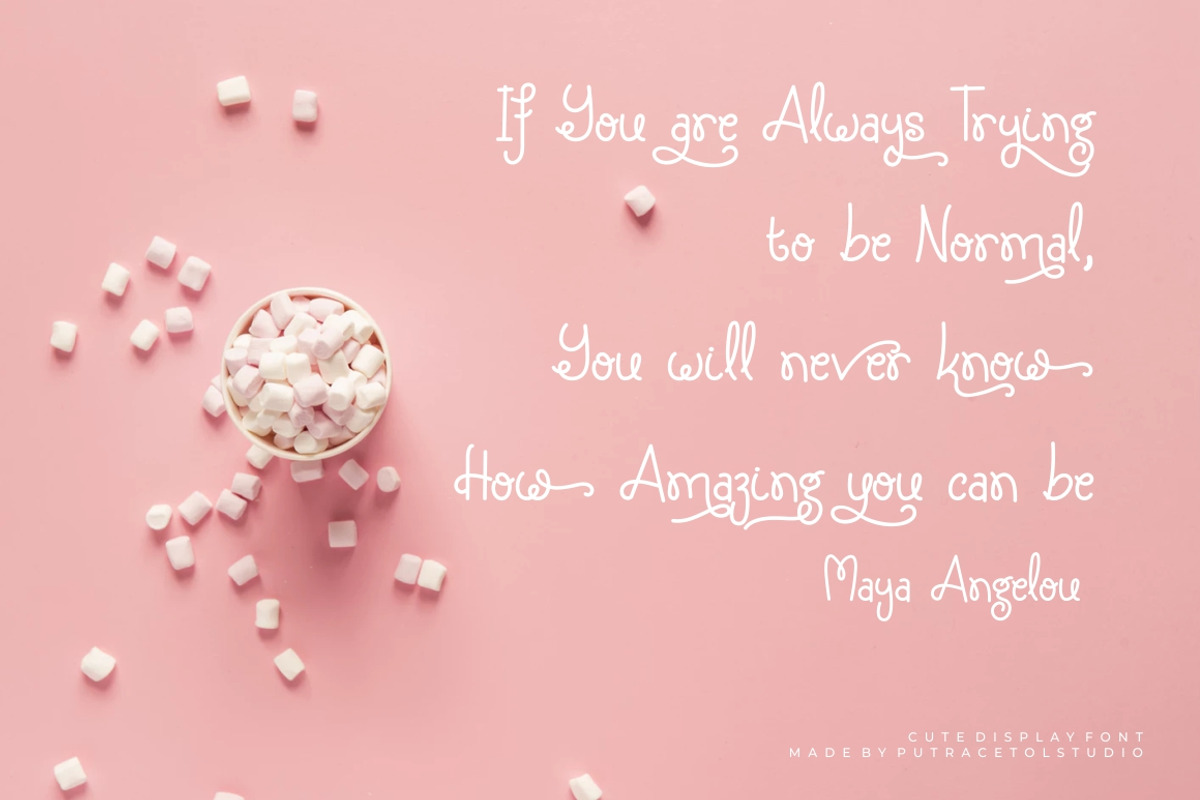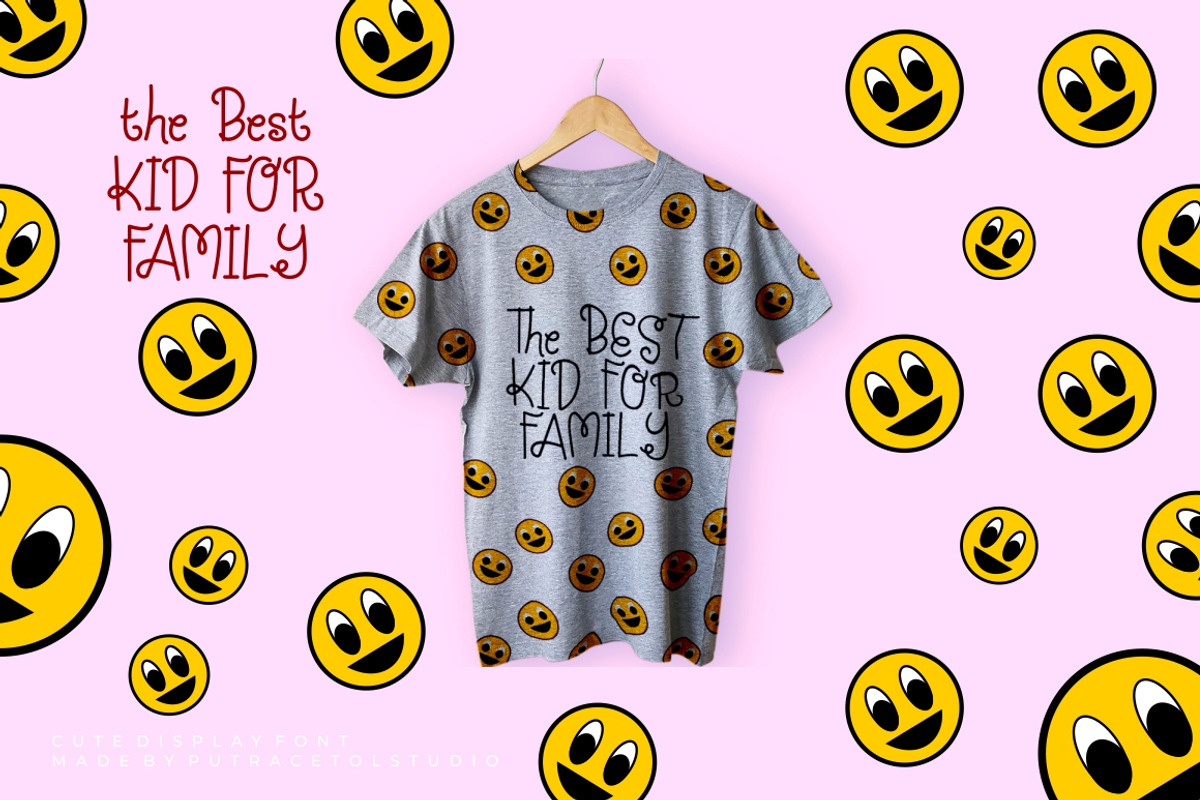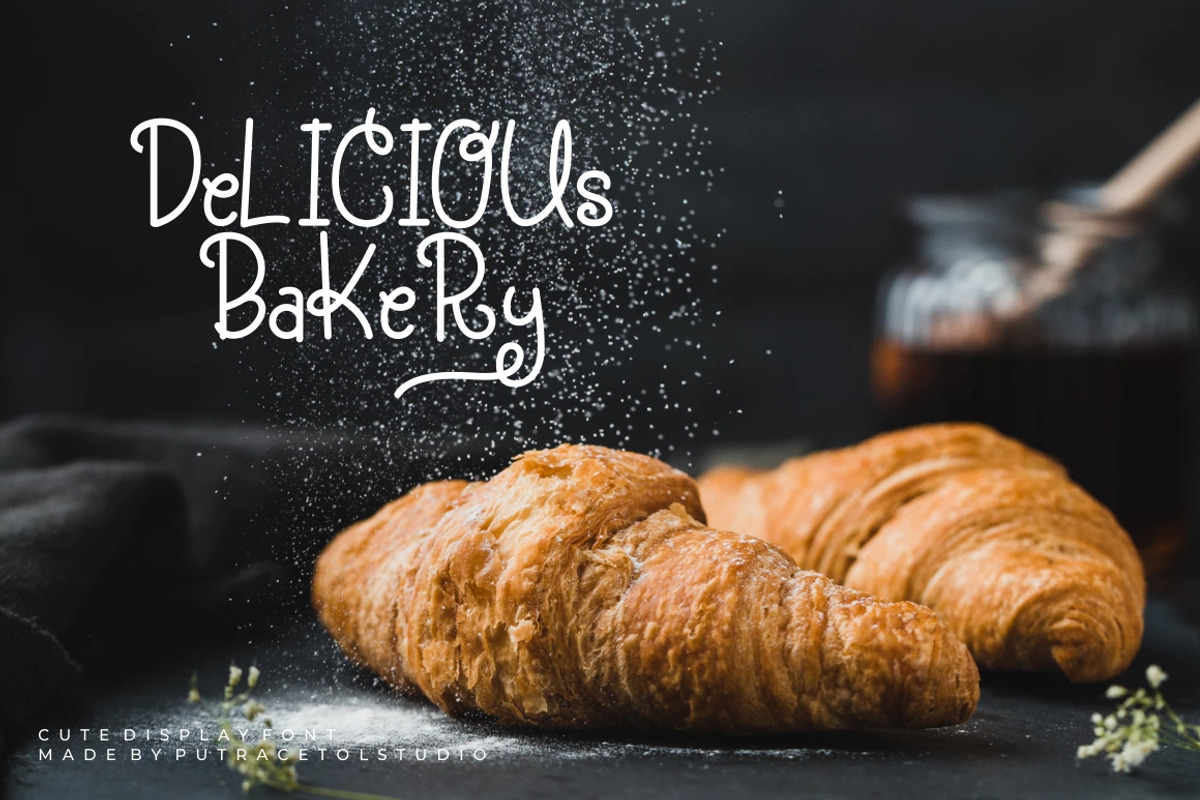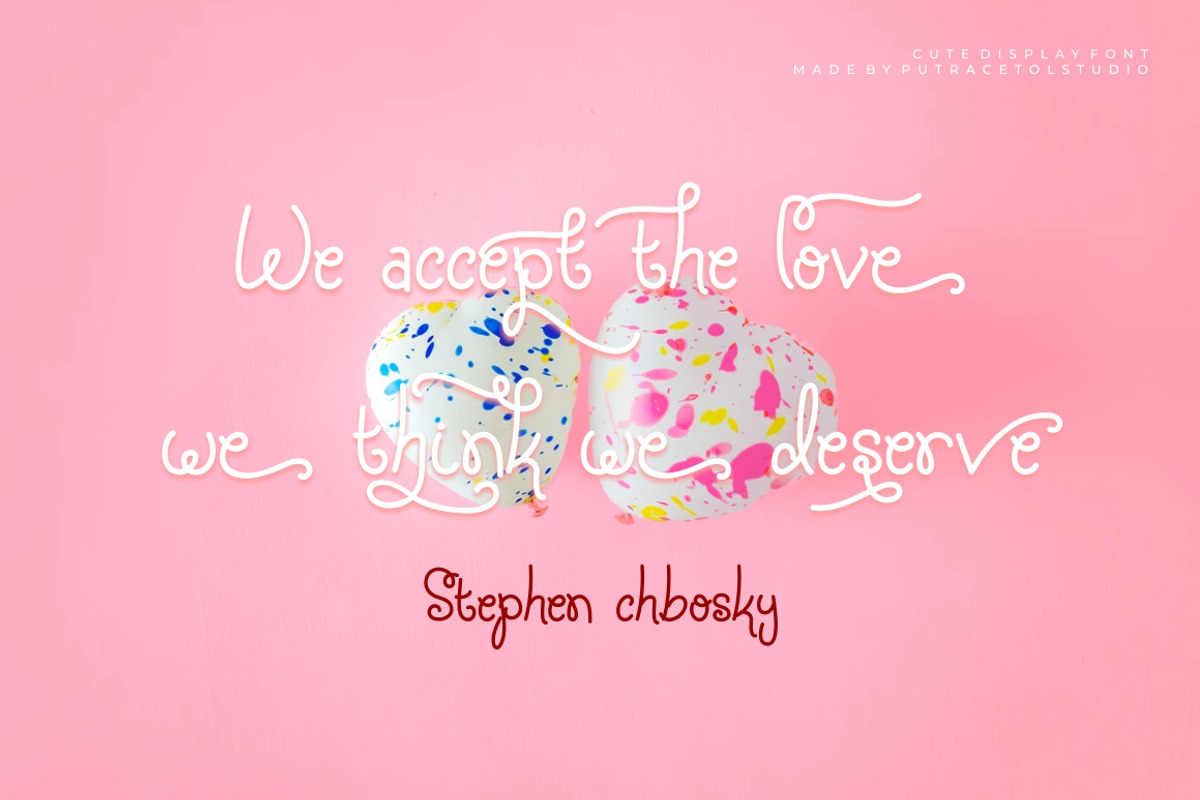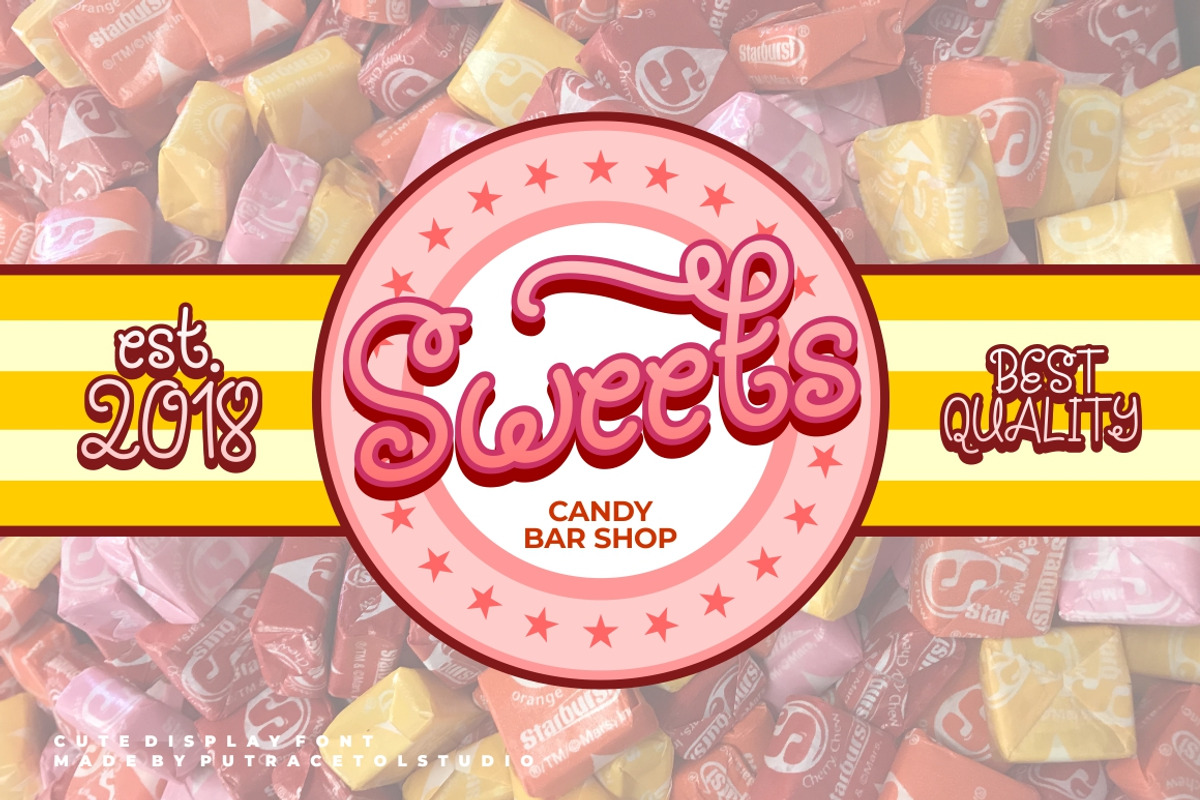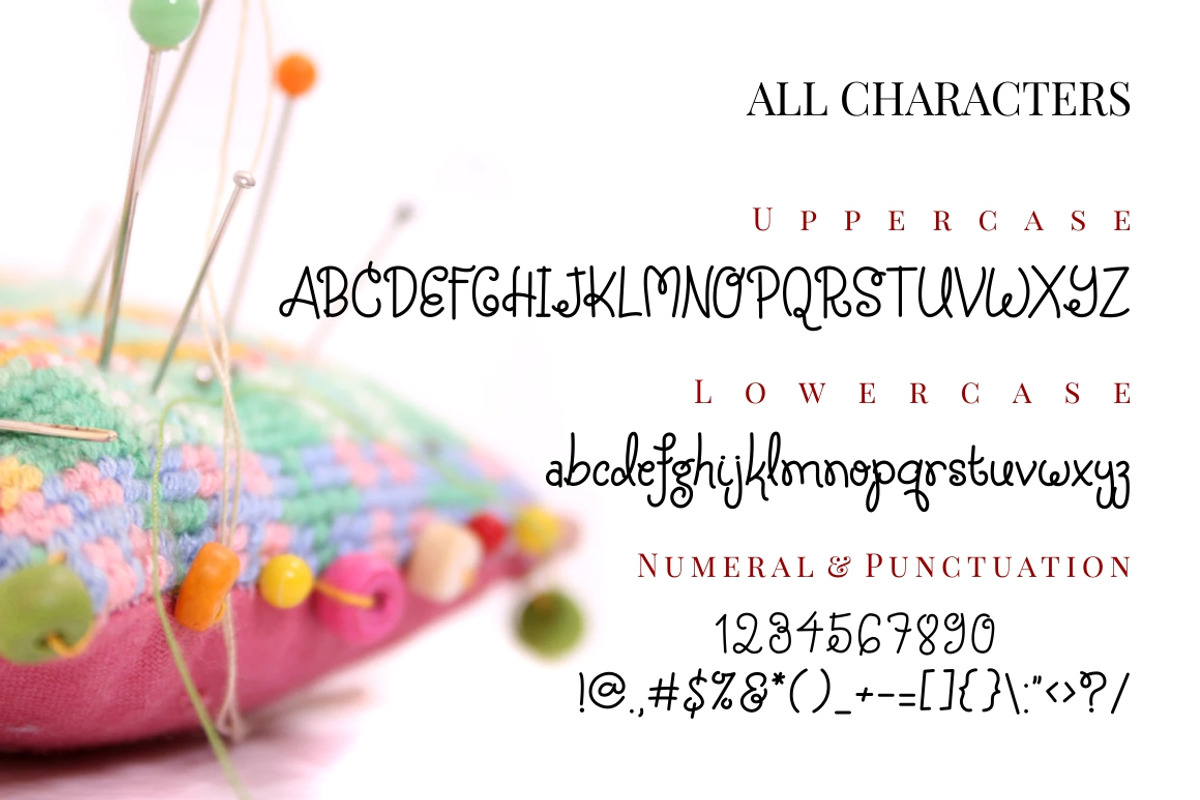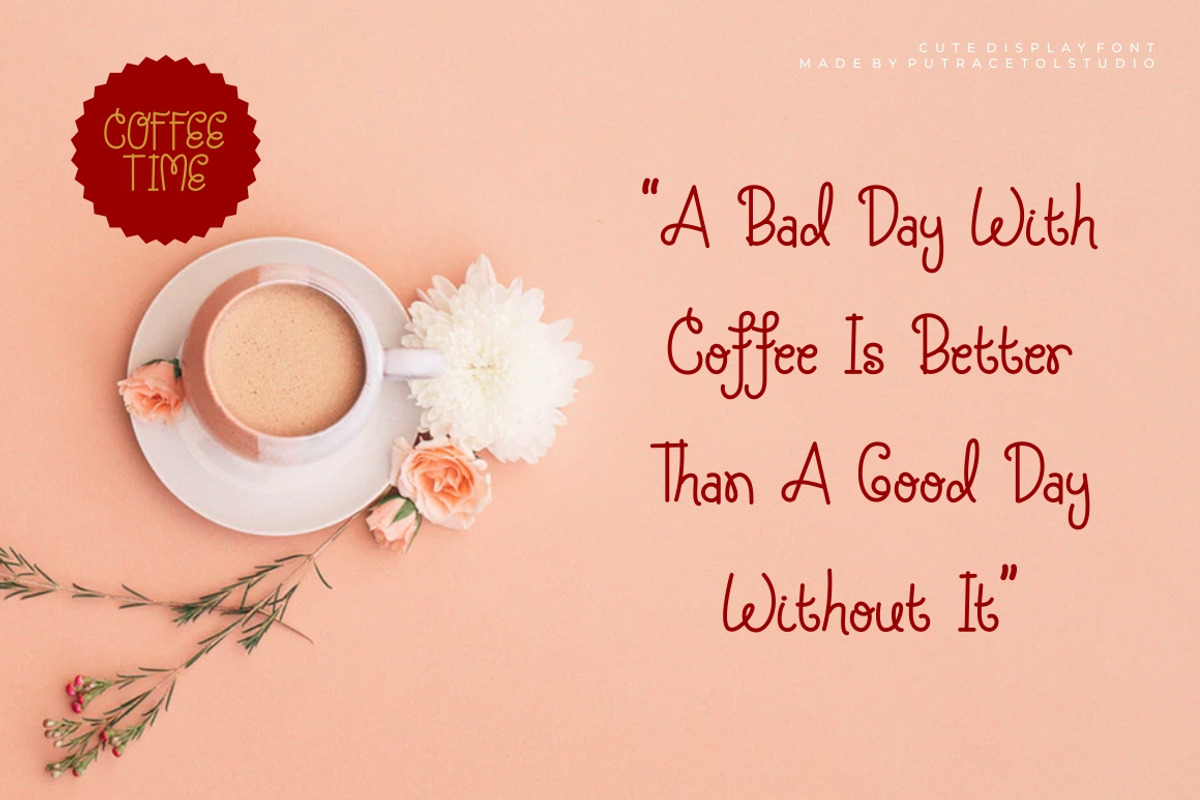
Silky Candy - Cute Sweet Font
Introducing ... Silky Candy - Sweet Cute Font
Silky Candy is a sweet cute and fun display font. Silky Candy would be perfect for Quotes, doodle, comic, books, greeting cards, toys, posters, baby clothing, picture books or anything that requires a fun and happiness look!
Why Silky Candy - Cute Sweet Font is worth a look
Silky Candy - Cute Sweet Font by PutraCetol Studio fits naturally into Branding, posters, packaging, typography.